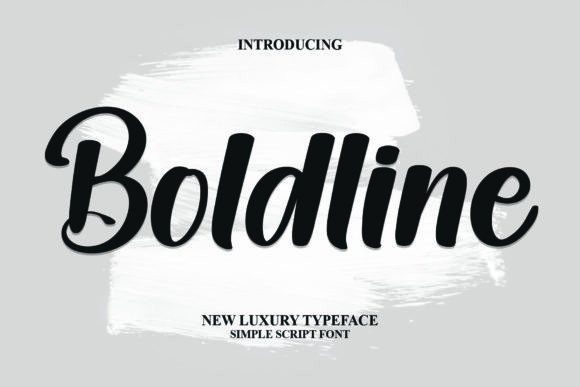
The Magic of Boldline Font: A Designer’s Delight
I’ll never forget the time I was working on a project for a client’s wedding invitation. I had the design concept all sorted out, but I was stuck on finding the perfect font. The client wanted something romantic, elegant, and unique. I scoured the internet, tried out countless fonts, but nothing seemed to fit the bill. That’s when I stumbled upon Boldline Font. It was like a breath of fresh air! The enchanting handwritten script instantly added a touch of whimsy and romance to my design. In this article, I’ll share my love for Boldline Font, its features, and how to make the most of it in your designs.
An Honest Review of Boldline Font
What I Love About Boldline Font ✨
- 💕 Romantic and elegant feel, perfect for wedding-related designs, Valentine’s Day cards, or any project that requires a touch of sophistication.
- ✅ Versatile and adaptable, works well for both headings and body text.
- 🎨 Beautifully crafted with unique letterforms that add a touch of personality to any design.
While Boldline Font is an amazing addition to any design project, there are a few things to keep in mind:
- ⚠️ May not be suitable for very small font sizes, as some details may get lost.
- ⚠️ Limited availability of certain characters, such as ligatures or special symbols.
The Story Behind Boldline Font
Boldline Font was created by a talented type designer who’s passionate about crafting beautiful, handwritten fonts. The designer’s inspiration came from traditional calligraphy and lettering, combined with a modern twist. The result is a font that’s both elegant and unique.
Q: What is Boldline Font best used for?
A: Boldline Font is perfect for designs that require a romantic, elegant feel, such as wedding invitations, Valentine’s Day cards, and sophisticated headlines.
Q: Is Boldline Font suitable for body text?
A: While Boldline Font is beautiful for headings, it’s also suitable for short blocks of body text. However, for longer texts, a more traditional font might be more readable.